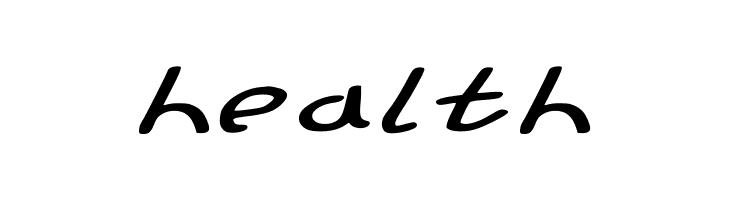
A playful font with characters enclosed in eye-shaped ovals, offering a whimsical and decorative style.
( Jessica Darnell )
A playful, hand-drawn font with bold, whimsical strokes.
A pixelated, retro-style font with a uniform, grid-like structure.
( wsquare )
A geometric, angular font with a modern, futuristic aesthetic.
A bold, geometric font with wide, square-shaped characters and a modern aesthetic.
( Chequered Ink - chequered.ink/ )
A modern, geometric font with clean lines and consistent stroke width.
A bold, playful handwritten font with rounded edges and consistent stroke width.